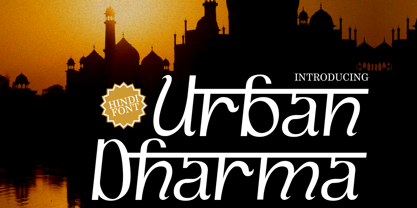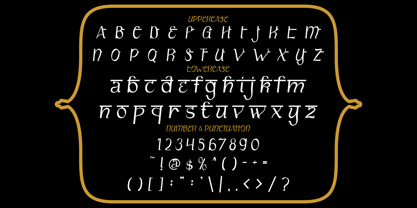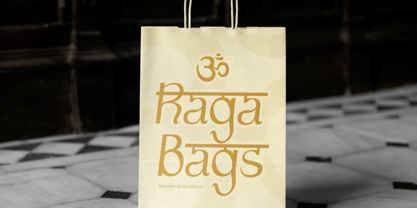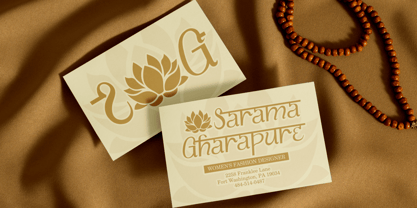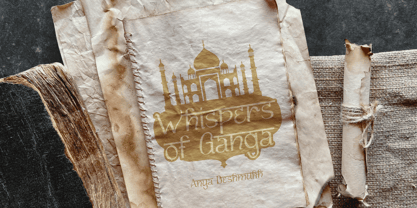
Urban Dharma
by Shanaf
The Urban Dharma Font Family was designed by Yesie Erma Yunita and published by Shanaf. Urban Dharma contains 2 styles and family package options. More about this family
Urban Dharma Hindi Font beautifully bridges Indian tradition with modern elegance. The font’s design features tall, refined letterforms accented by horizontal strokes that echo classic Devanagari structure. Each character has graceful curvature and balanced proportions, blending sharp edges with soft, flowing lines. The thin to medium weight of the strokes gives it a sophisticated and clean appearance, ideal for both decorative and professional use. Urban Dharma Hindi Font exudes a sense of cultural depth and artistic balance, making it perfect for designers seeking a typeface with spiritual and aesthetic harmony. This typeface works exceptionally well for logo design, branding, invitations, product packaging, magazine covers, and editorial projects that celebrate cultural identity. It adds a touch of heritage to modern compositions, making it a versatile choice for luxury or artisanal branding. Its distinctive Hindi-style influence enhances any design with authenticity and sophistication, especially for businesses inspired by Indian art, wellness, yoga, or spirituality. Urban Dharma Hindi Font brings meaning and soul to typography, combining ancient inspiration with timeless design appeal. Whether used for headlines, posters, or branding, this font delivers visual poetry and cultural resonance in every letter.
Designers: Yesie Erma Yunita
Foundry: Shanaf